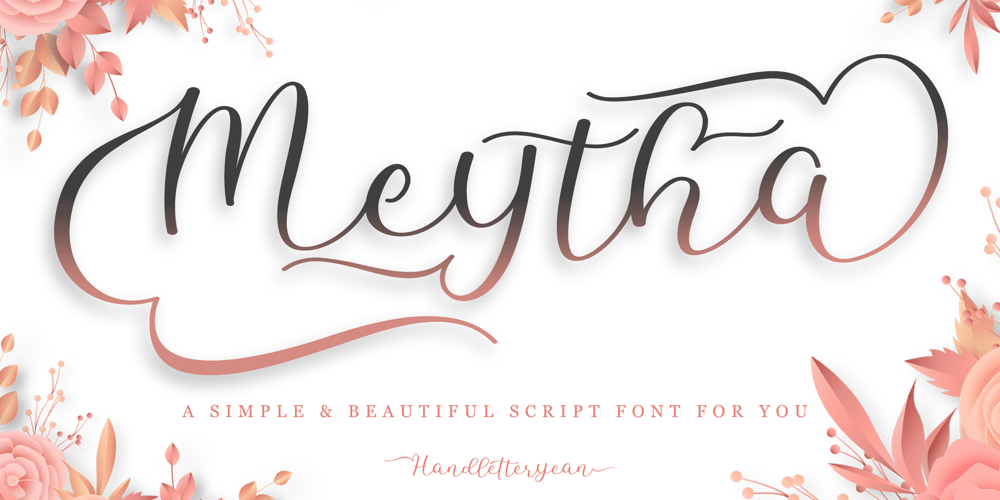
Meytha
Meytha font
Meytha Font Family was designed by Yean Aguste and published by HandletterYean. Meytha contains 1 styles and family package options. Meytha simplifies elegance into a one truly outstanding handwritten font. It maintains its classy calligraphic influences while feeling contemporary and fresh. This versatility will appeal to a wide range of crafty ideas, from letterheads and titles to stationery, also greeting cards, invitations, store names, posters, labels, quotes, and any kind of design. To access the alternate glyphs, you need a program that supports OpenType features such as Adobe Illustrator CS, Adobe Photoshop CC, Adobe Indesign, and CorelDraw. More information about how to access alternate glyphs, check out this link: http://goo.gl/ZT7PqK